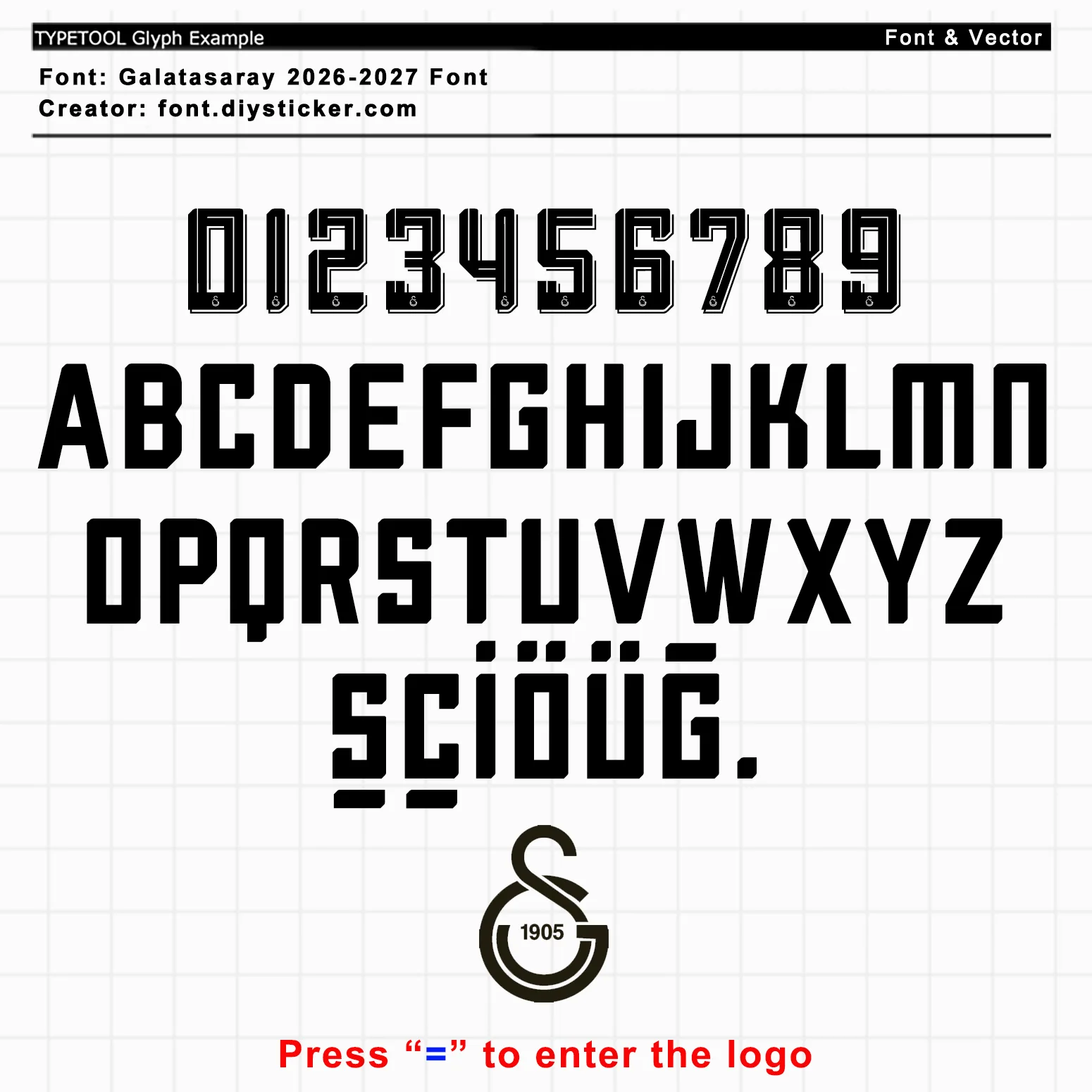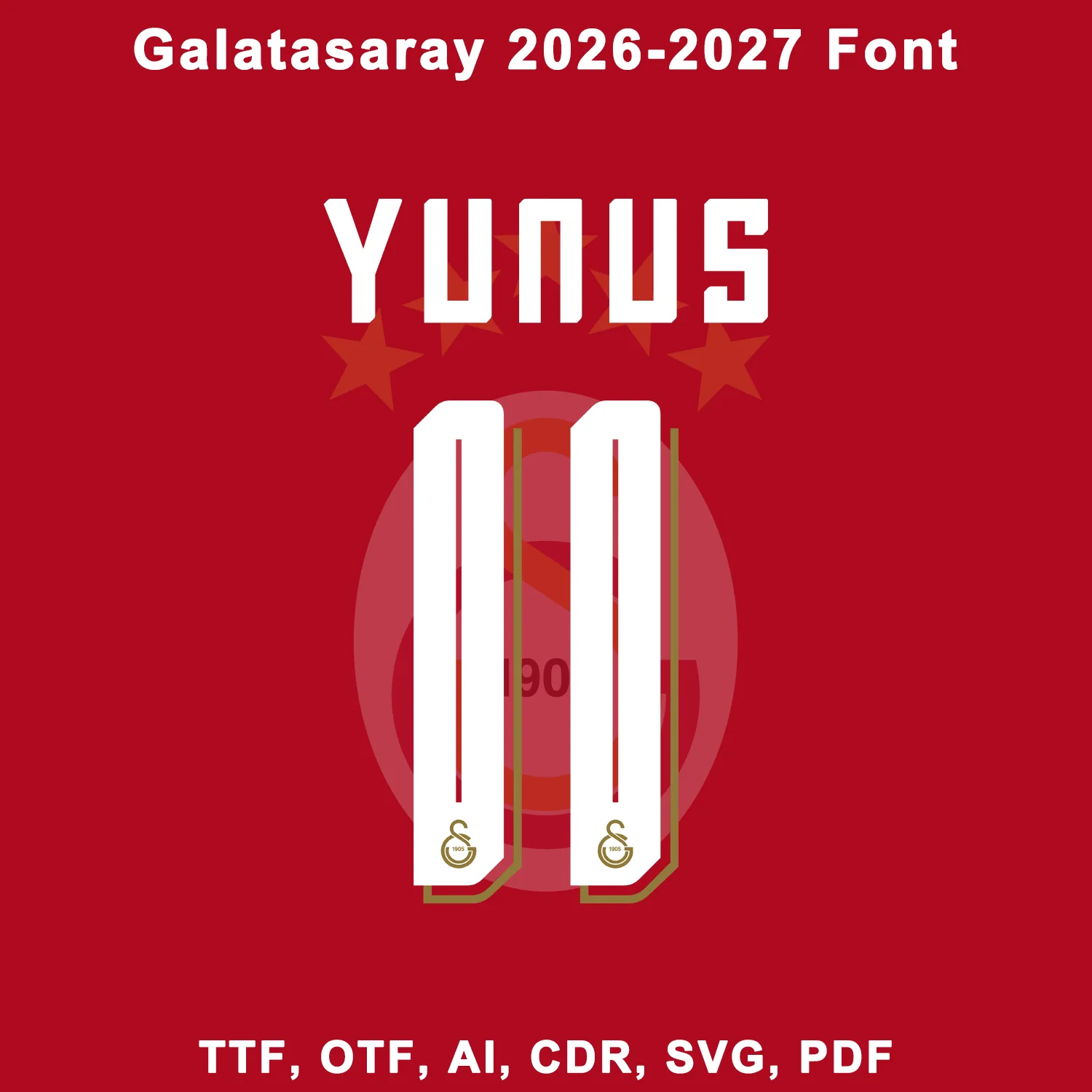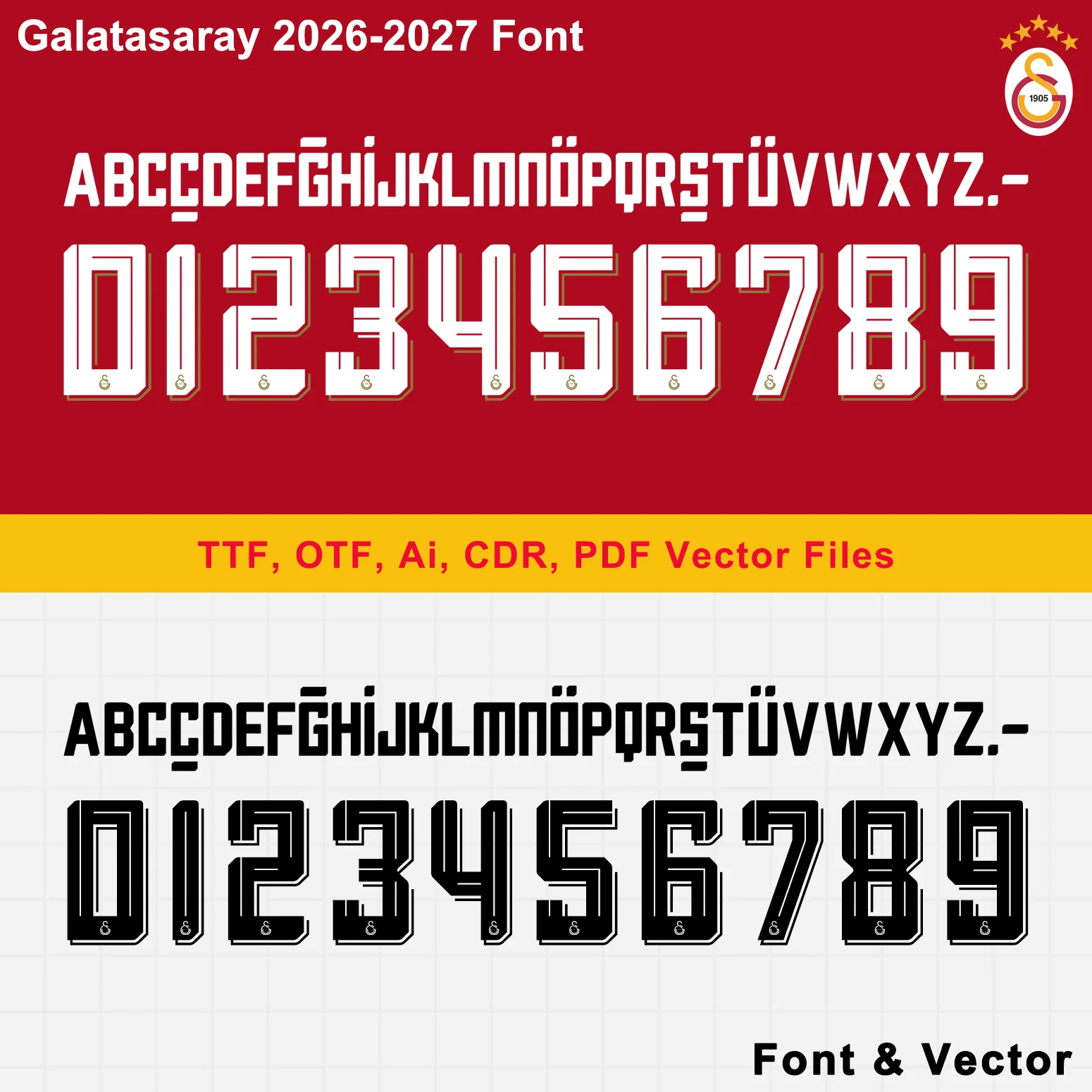
Grab the authentic Galatasaray 2026-2027 Font for custom Galatasaray S.K home league jersey design and print work. This fully digital typography pack replicates the official match home kit lettering, available for instant download right after checkout.
Galatasaray 2026-2027 Font | Official Galatasaray S.K Domestic League Typography
The Galatasaray 2026-2027 Font is a precise digital replica of the official jersey lettering used by Galatasaray S.K for domestic league matches throughout the 2026-2027 season. Created for print studios, jersey restorers and custom apparel designers, this font features thick square double-line outline sans-serif shapes, thin gold border layered numerals, tiny embedded Galatasaray S monogram crest marks at the base of every number, and a full set of Turkish diacritic accented characters to match all official Galatasaray player names. The iconic Galatasaray S crest glyph can be instantly accessed by pressing the “=” key inside TTF/OTF font files, optimized for the classic red home jersey base.
Whether you’re recreating vintage replica home jerseys, producing personalized fan kits, or preparing bulk vinyl cut orders for league supporters, this complete font set delivers crisp, print-ready vector characters with perfectly matched official kerning and shape proportions.